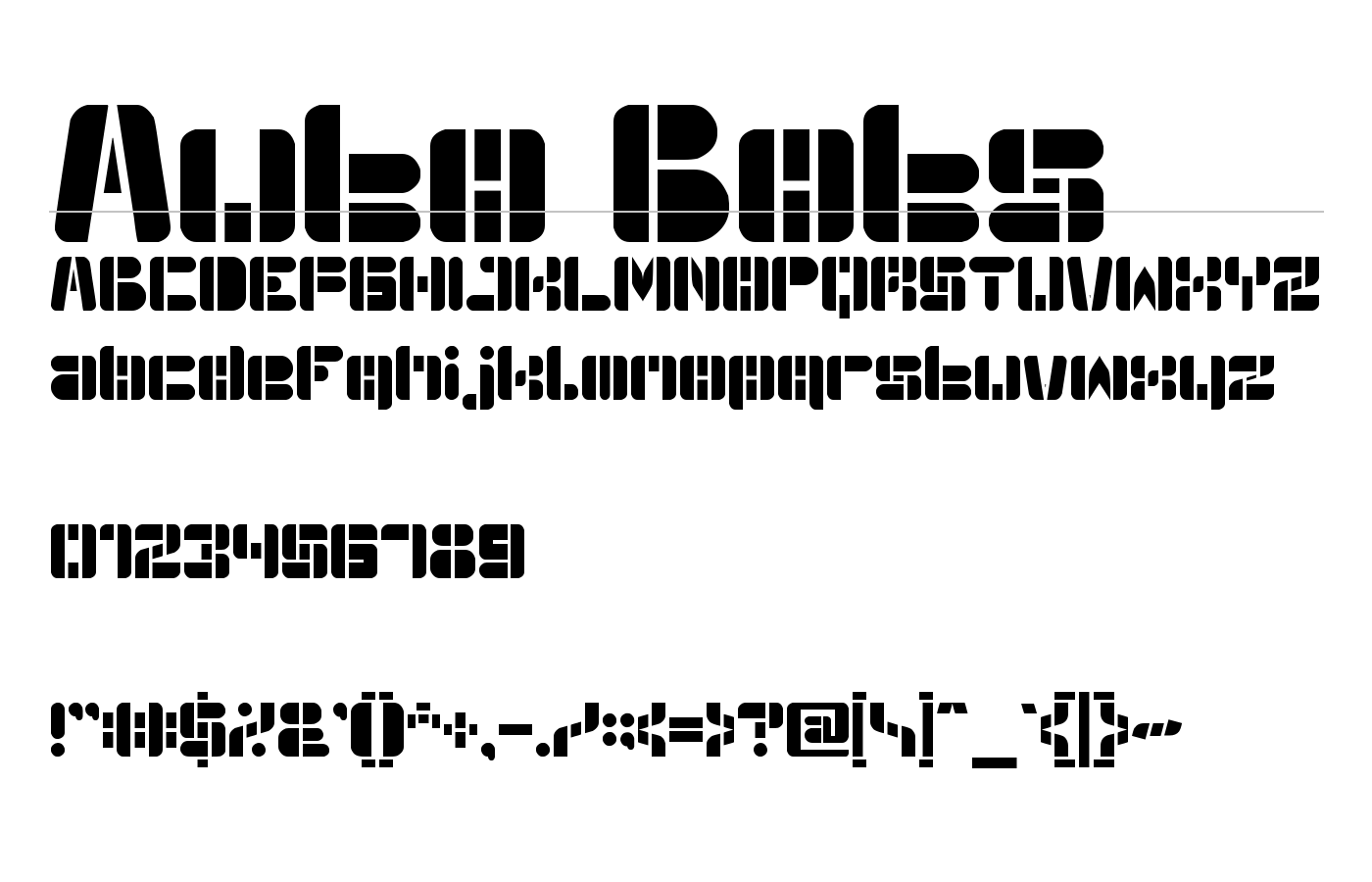
Auto Bots is a bold and futuristic display font featuring thick, blocky letterforms with a stencil-like, modular construction that gives it a strong, tech-inspired personality. Its geometric shapes and sharp angles create a high-impact, industrial feel perfect for sci-fi themes, technology branding, or modern headlines where a commanding and unconventional look is desired. This font stands out in logos, posters, and digital media where bold statement typography is key.
Auto Bots Font